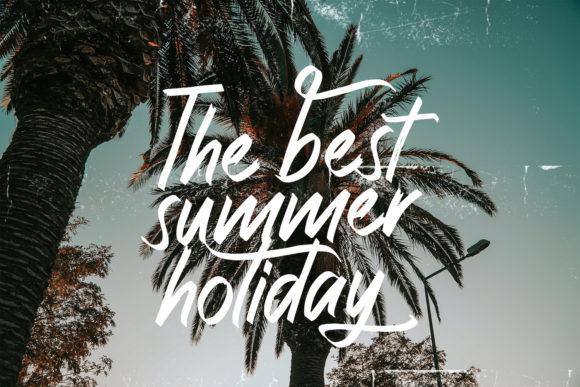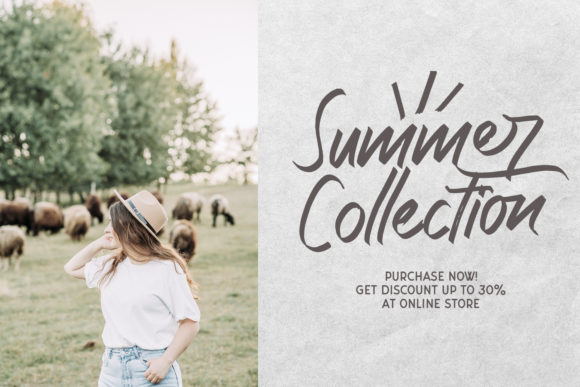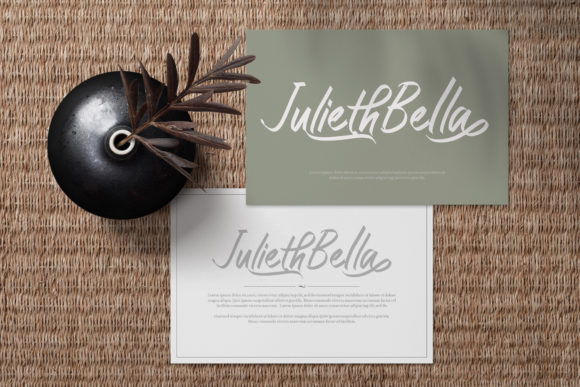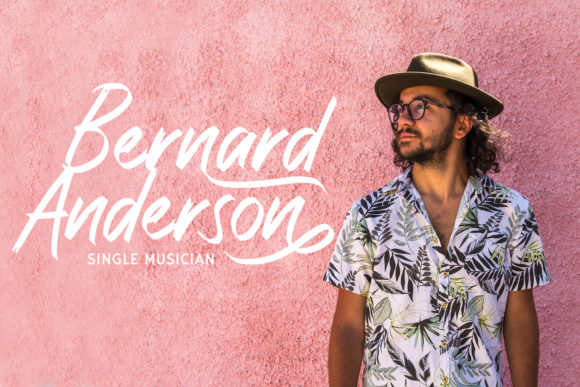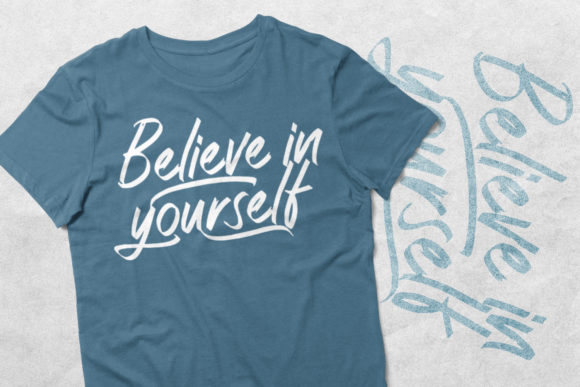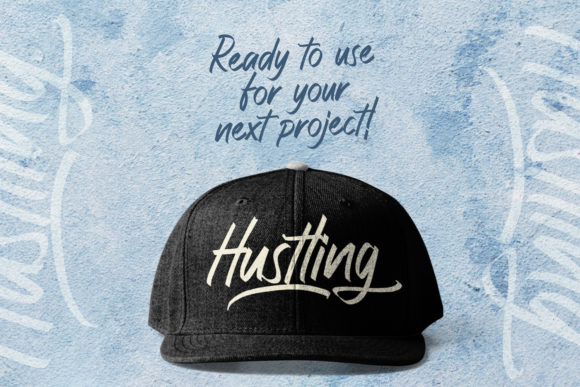
Introducing Angika Jaya Font: Elevate Your Designs with Elegance
In the world of typography, a font can make or break a design. It’s the perfect blend of style, elegance, and personality that brings a creative vision to life. For designers and crafters looking for a touch of sophistication and fluidity in their work, Angika Jaya Font is an exquisite choice. This delicate, elegant, and flowing handwritten font is poised to transform your most creative ideas into stunning visual realities.
The Beauty of Angika Jaya Font
Angika Jaya Font stands out with its beautifully crafted characters, each one meticulously designed to exude a sense of grace and poise. The font’s delicate strokes and elegant flow make it a versatile choice for a wide range of design projects. Whether you’re working on a branding project, crafting an invitation, designing a website, or creating digital content, Angika Jaya Font brings a level of sophistication that is hard to match.
Key Features of Angika Jaya Font
- Delicate and Elegant: The font’s light and airy feel makes it perfect for designs that require a touch of elegance and refinement.
- Flowing Handwritten Style: Its flowing and connected script style mimics the natural flow of handwriting, adding a personal and unique touch to any design.
- Well-Balanced Characters: Each character in the Angika Jaya Font is carefully crafted to ensure balance and harmony, making it easy to read and visually appealing.
- Versatility: Thanks to its elegant and flowing nature, Angika Jaya Font can be used across a variety of design projects, from luxury branding to wedding invitations, and from digital blogs to packaging designs.
Why Choose Angika Jaya Font?
Choosing Angika Jaya Font for your design project means you’re opting for a typeface that can elevate your work from ordinary to extraordinary. Its unique blend of delicacy and elegance ensures that your designs stand out in a crowded marketplace. Here are a few reasons why designers and crafters are falling in love with Angika Jaya Font:
- Enhances Readability: Despite its elegant and flowing nature, Angika Jaya Font maintains a high level of readability, making it perfect for both headings and body text.
- Brings Ideas to Life: Adding Angika Jaya Font to your designs instantly breathes life into them, turning simple concepts into visually compelling stories.
- Supports Creative Freedom: With its versatile and adaptable nature, Angika Jaya Font gives designers the freedom to experiment with various design ideas and themes.
Using Angika Jaya Font in Your Designs
Incorporating Angika Jaya Font into your design workflow is straightforward. Here are some tips to get you started:
- Pair with Complementary Fonts: For maximum impact, pair Angika Jaya Font with fonts that complement its elegance and flow. A sans-serif font for body text can create a beautiful contrast.
- Experiment with Colors: While Angika Jaya Font looks stunning in classic black and white, don’t be afraid to experiment with colors that match your brand’s palette or the mood of your design.
- Play with Sizes: Utilize different font sizes to create a hierarchy of information, making your design more engaging and easier to navigate.
Angika Jaya Font is more than just a typeface; it’s a design element that can transform your creative ideas into captivating visual experiences. Its delicate, elegant, and flowing nature makes it a versatile choice for designers and crafters looking to add a touch of sophistication to their work. Whether you’re creating a brand identity, crafting an invitation, or designing a website, Angika Jaya Font is poised to elevate your designs to new heights of elegance and beauty.
So why wait? Discover the potential of Angika Jaya Font and let its elegance flow through your designs, bringing your most creative ideas to life in ways you never thought possible.